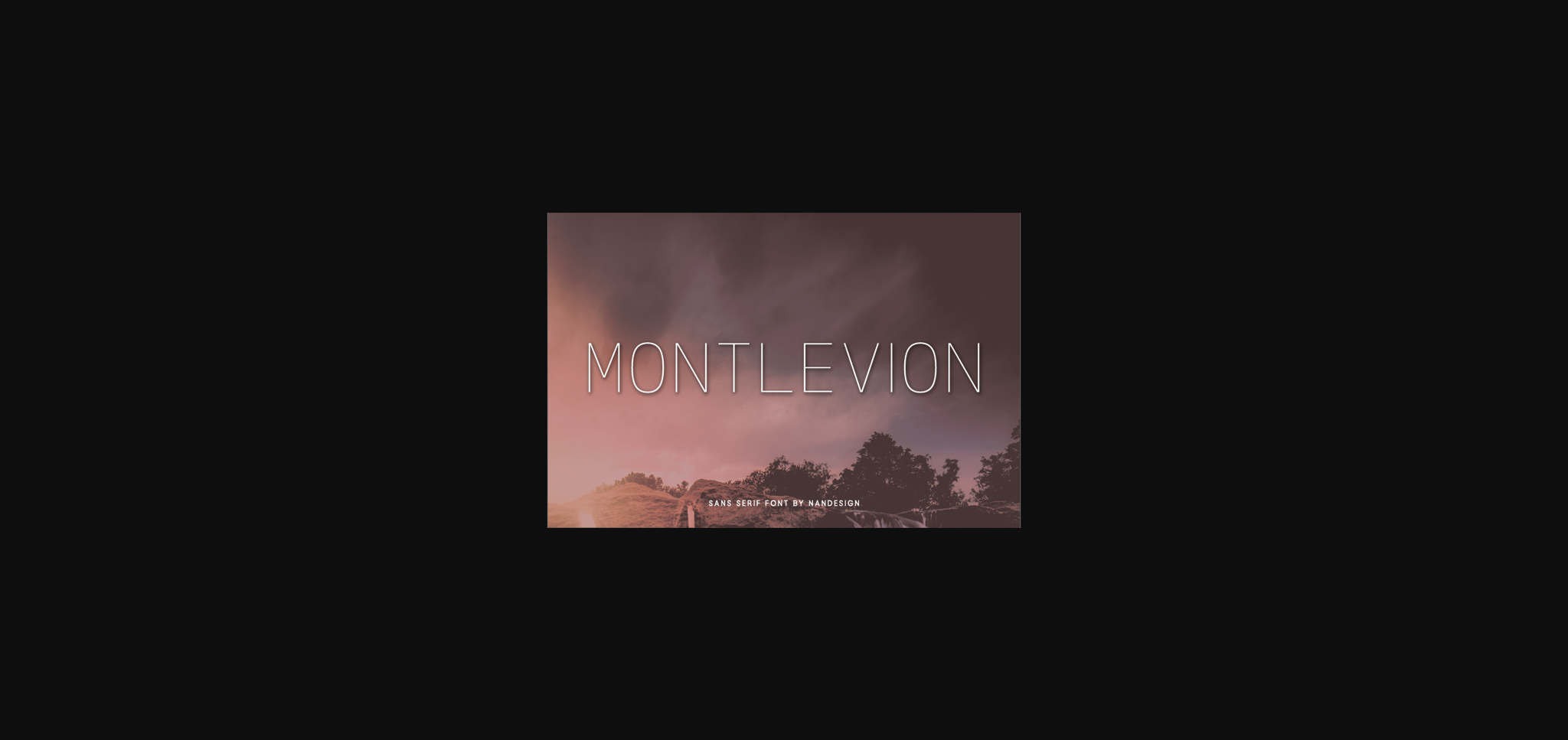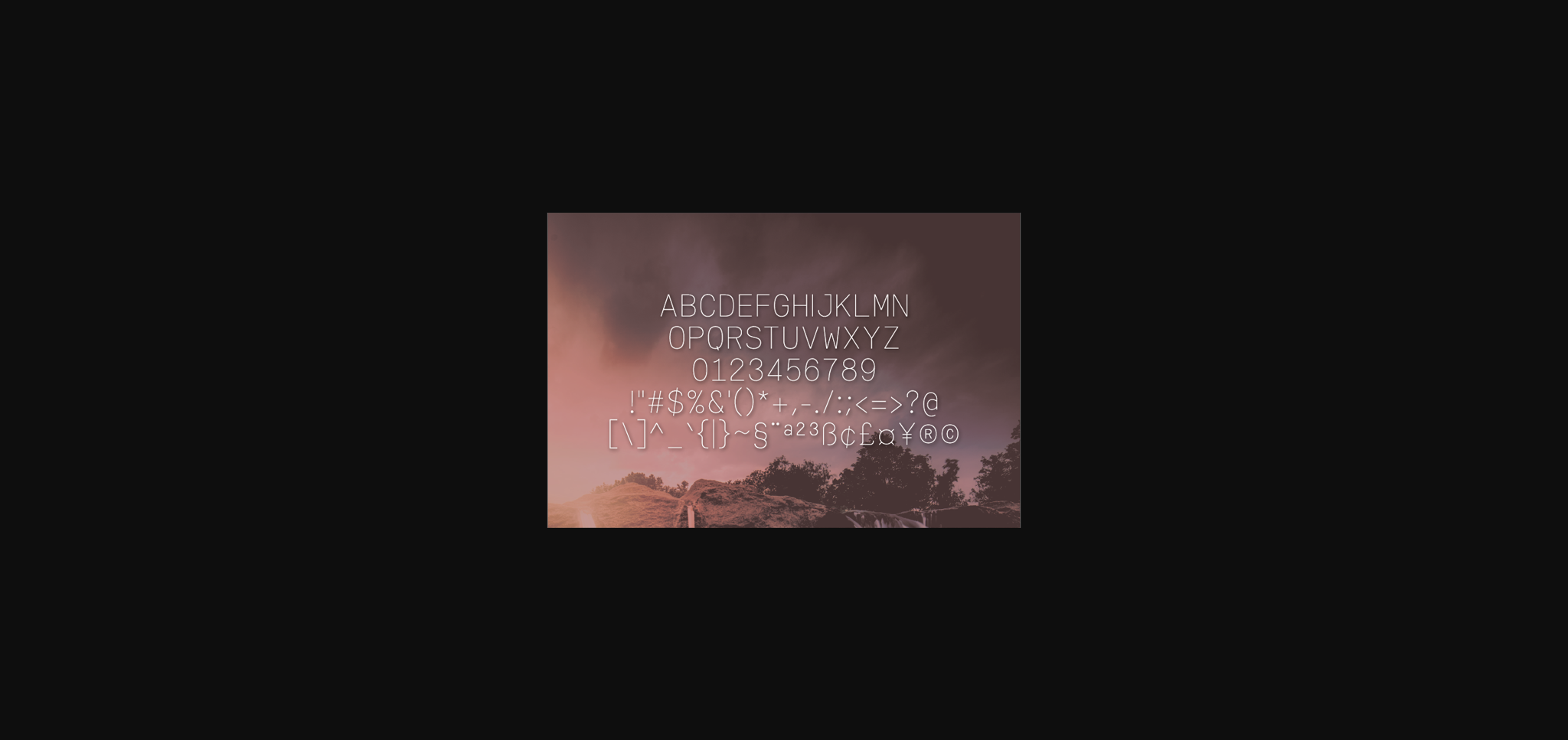
About Montlevion Font
Montlevion is a natural and thin lettered sans serif font. It can easily be matched to an incredibly large set of projects, so add it to your creative ideas and notice how it makes them stand out! It looks great on displays, headers, invitations, save the dates, weddings, and so much more!